In this 2-part series, with prompts in between, we invite you to:
- Play
- Join us in this unique approach
- The Dance
As we dance with the bones of Roman Capitals, its compressed version, your version, and your favorite mark-making tools on black paper.
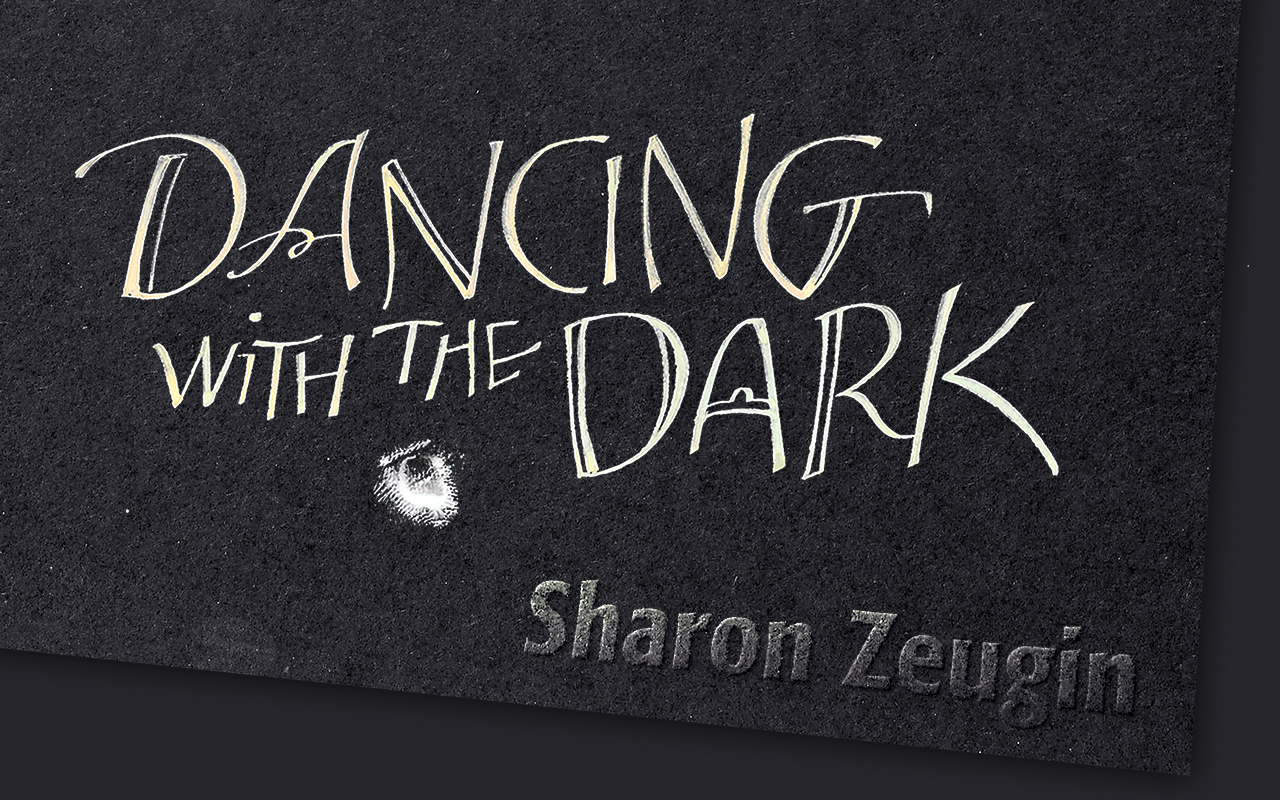
INSPIRATION from Sharon
"Let's use this time to emphasize connecting the lettering with personal feeling and one’s own words—a meaningful mantra or something fun to write. This is an opportunity for experimenting with improvisation in terms of writing words and designing as you go.
We’ll start simply and grow from there, always rooted in the knowledge and experience of the forms—and variations on their rhythm, spacing and proportions."